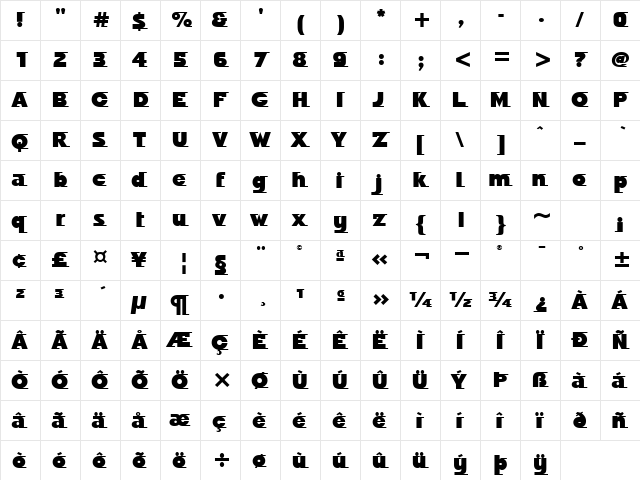
Odyssee Md ITC TT Ultra
Design Context for Odyssee Md ITC TT Typeface
Odyssee Md ITC TT offers clean, dependable letterforms without strong stylistic allegiance, making it a practical choice for designers who need flexibility.